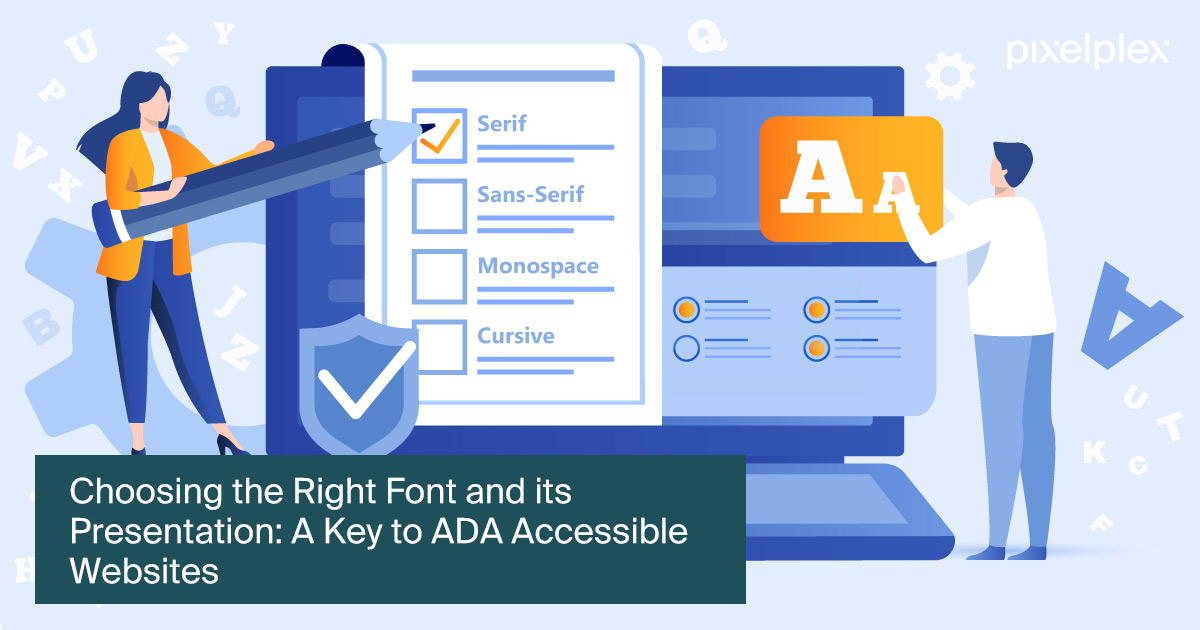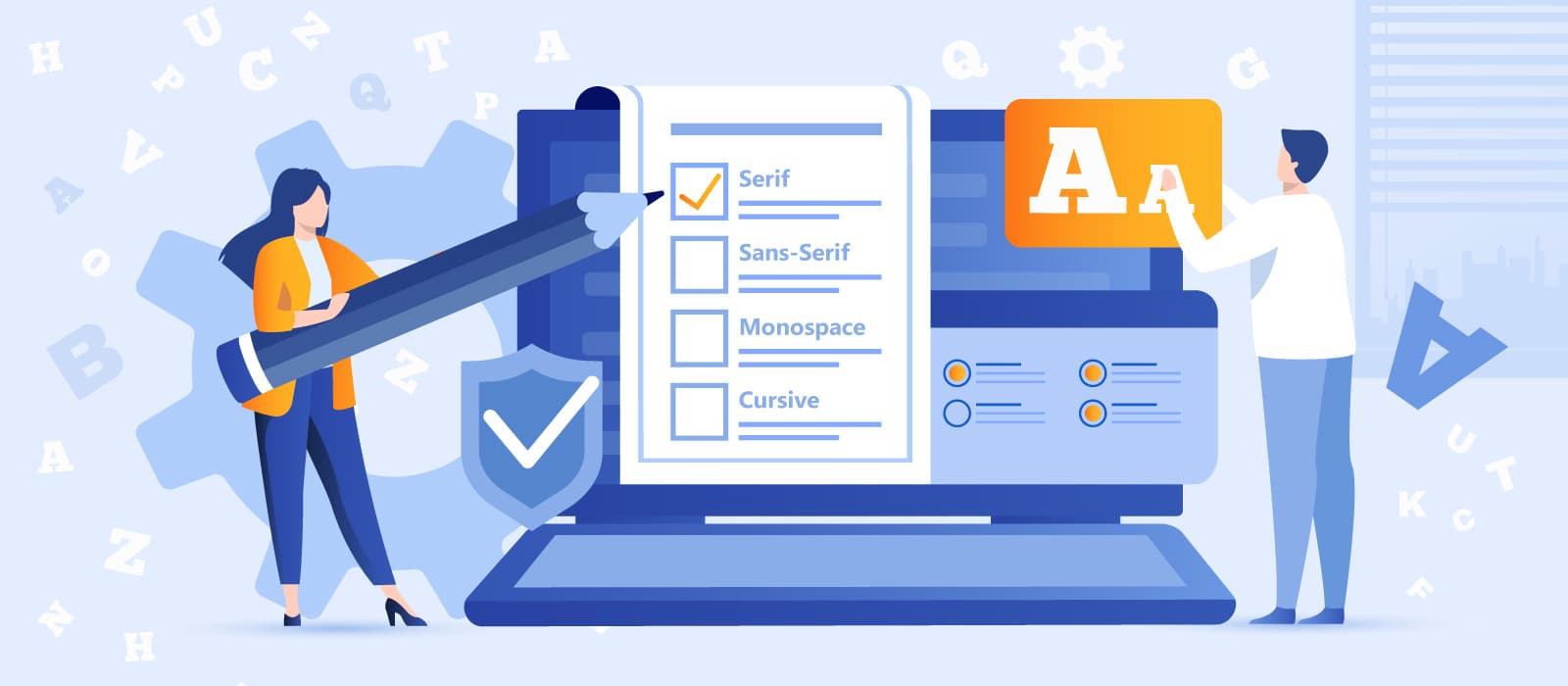
Ada Compliant Fonts 2020
Ada Compliant Fonts 2020. Recent rulings point to wcag as the gold standard for website accessibility. Ada digital requirements will continue to become more prevalent and important as the modern digital landscape continues to evolve.
Recent rulings point to wcag as the gold standard for website accessibility. The ada home page provides access to americans with disabilities act (ada) regulations for businesses and state and local governments, technical assistance materials, ada standards for accessible design, links to federal agencies with ada responsibilities and information, updates on new ada requirements, streaming video, information about department of justice ada. Use headings to help the reader navigate the materials.
If you’re considering a website update or rebuild, now is the perfect time to ensure compliance with ada in 2020 and beyond. Trying to create an ada compliant hub page. Ada standards for accessible design, can be downloaded from www.ada.
The ada home page provides access to americans with disabilities act (ada) regulations for businesses and state and local governments, technical assistance materials, ada standards for accessible design, links to federal agencies with ada responsibilities and information, updates on new ada requirements, streaming video, information about department of justice ada. Recent rulings point to wcag as the gold standard for website accessibility. Not all fonts are designed for web accessibility.
Letters And Pictograms Should Contrast With Their Background, Either Dark On Light, Or Light On Dark.
This is a complex task, and it’s best to leave ada compatible website development to experts. In order for a video to be ada compliant, it must contain captions or a transcript, and if needed, audio description (see page 20). Font style is one of the most important considerations of accessible website design.
Wcag 2.1 Aa Includes More Than 50 Technical Standards To Improve The Accessibility Of Your Website, Or Mobile App.
The newly created group can now be viewed. Are the most commonly recommended due to both their readability and availability across a variety of computer operating systems. Although screen readers can be a great help in deciphering text for visually impaired users, choosing fonts that are easily legible will benefit more users from the outset.
Turn On “High Contrast” Mode In Windows;
Evaluate contrast and color accessibility ( webaim ). Adk’s team of designers and developers have vast experience building ada compliant digital products,. Fonts such as georgia, open sans and quicksand are good choices for maximum accessibility.